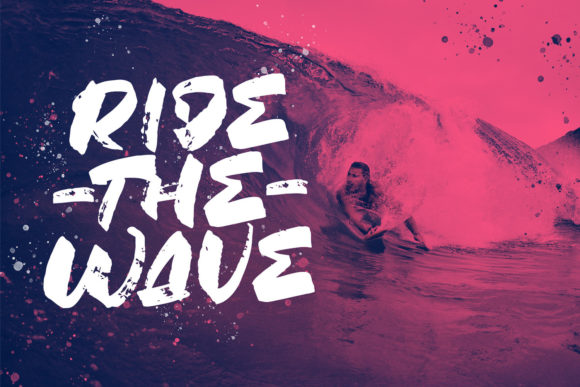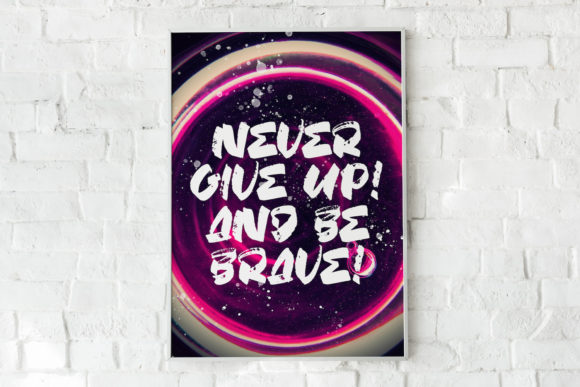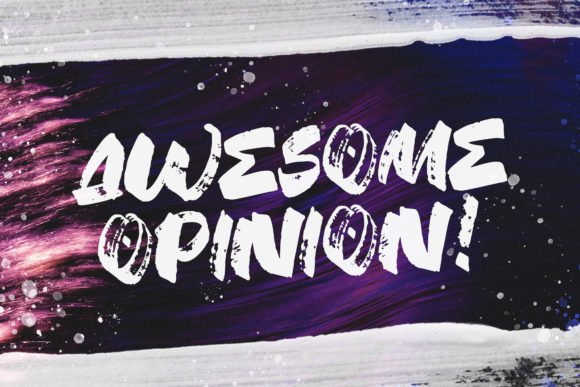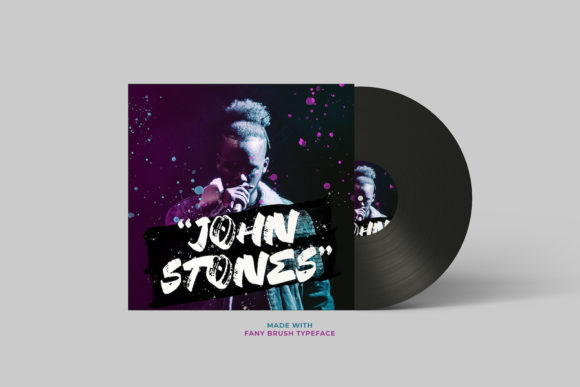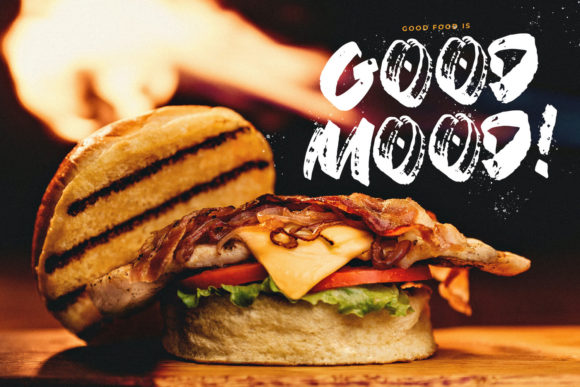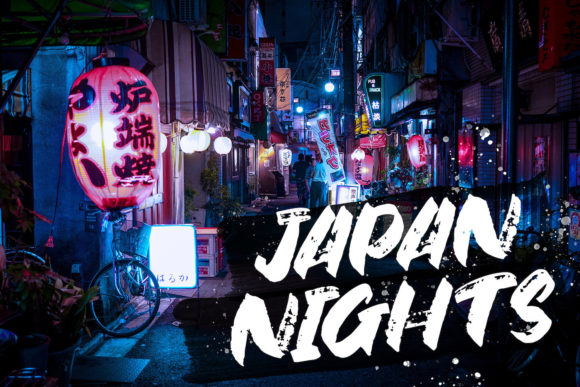
Fany Brush Font: Elevate Your Designs with a Unique Textured Hand Brush Display Font
Are you tired of using the same old fonts in your designs? Do you want to add a touch of personality and whimsy to your projects? Look no further than Fany Brush Font, a stunning textured hand brush display font that’s sure to inspire. In this article, we’ll dive into the world of Fany Brush Font, exploring its unique features, and how you can incorporate it into your favorite designs.
What is Fany Brush Font?
Fany Brush Font is a one-of-a-kind, hand-crafted font that mimics the look and feel of a textured brush. Its unique, organic texture gives it a distinct personality that’s perfect for designers and crafters looking to add a touch of elegance and sophistication to their work. Whether you’re creating a logo, poster, or social media graphic, Fany Brush Font is sure to make your design stand out.
Key Features of Fany Brush Font
- Textured Hand Brush Display Font: Fany Brush Font boasts a beautiful, textured finish that gives it a hand-crafted feel.
- Unique and Beautiful Style: Its distinctive style is sure to add a touch of personality to any design.
- High-Quality Design: Fany Brush Font is designed with high-quality, scalable vectors that ensure crisp and clear text at any size.
- Easily Customizable: Fany Brush Font can be easily customized to fit your design needs, from adjusting font sizes to changing colors.
Inspiration and Design Ideas
Fany Brush Font is a versatile font that can be used in a wide range of design projects. Here are a few ideas to get you started:
- Logos and Branding: Use Fany Brush Font to create a unique and memorable logo that stands out from the crowd.
- Posters and Flyers: Add a touch of elegance to your posters and flyers with Fany Brush Font’s beautiful, textured finish.
- Social Media Graphics: Elevate your social media graphics with Fany Brush Font’s distinctive style and personality.
- Wedding and Event Stationery: Use Fany Brush Font to create beautiful, custom wedding and event stationery that reflects your personal style.
Tips for Using Fany Brush Font
Here are a few tips to help you get the most out of Fany Brush Font:
- Experiment with Font Sizes: Fany Brush Font looks great at a range of font sizes, from large display text to smaller body text.
- Play with Colors: Try pairing Fany Brush Font with different colors and textures to create a unique and eye-catching design.
- Mix and Match Fonts: Combine Fany Brush Font with other fonts to create a visually interesting and dynamic design.
Fany Brush Font is a truly unique and beautiful textured hand brush display font that’s perfect for designers and crafters looking to add a touch of personality to their work. With its high-quality design, easily customizable features, and versatile style, Fany Brush Font is sure to inspire. So why wait? Get creative with Fany Brush Font today and elevate your designs to the next level!